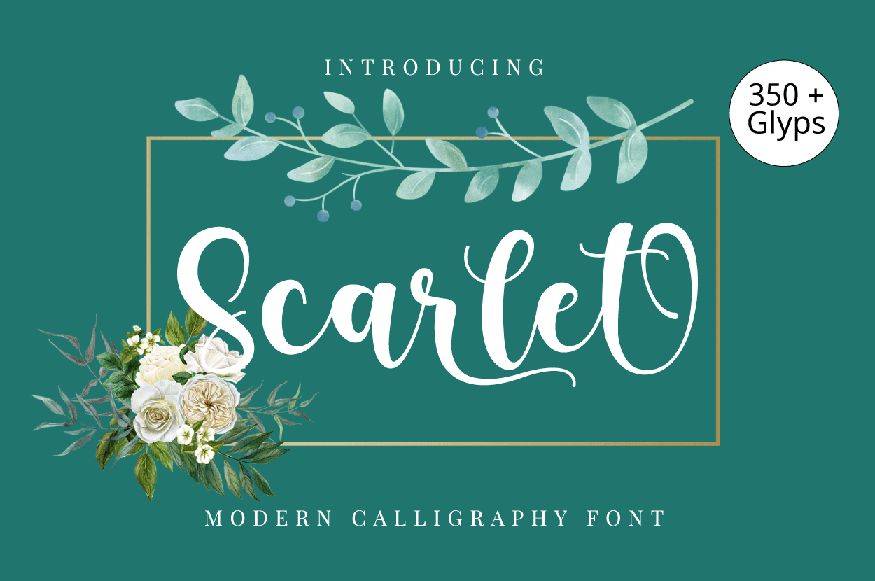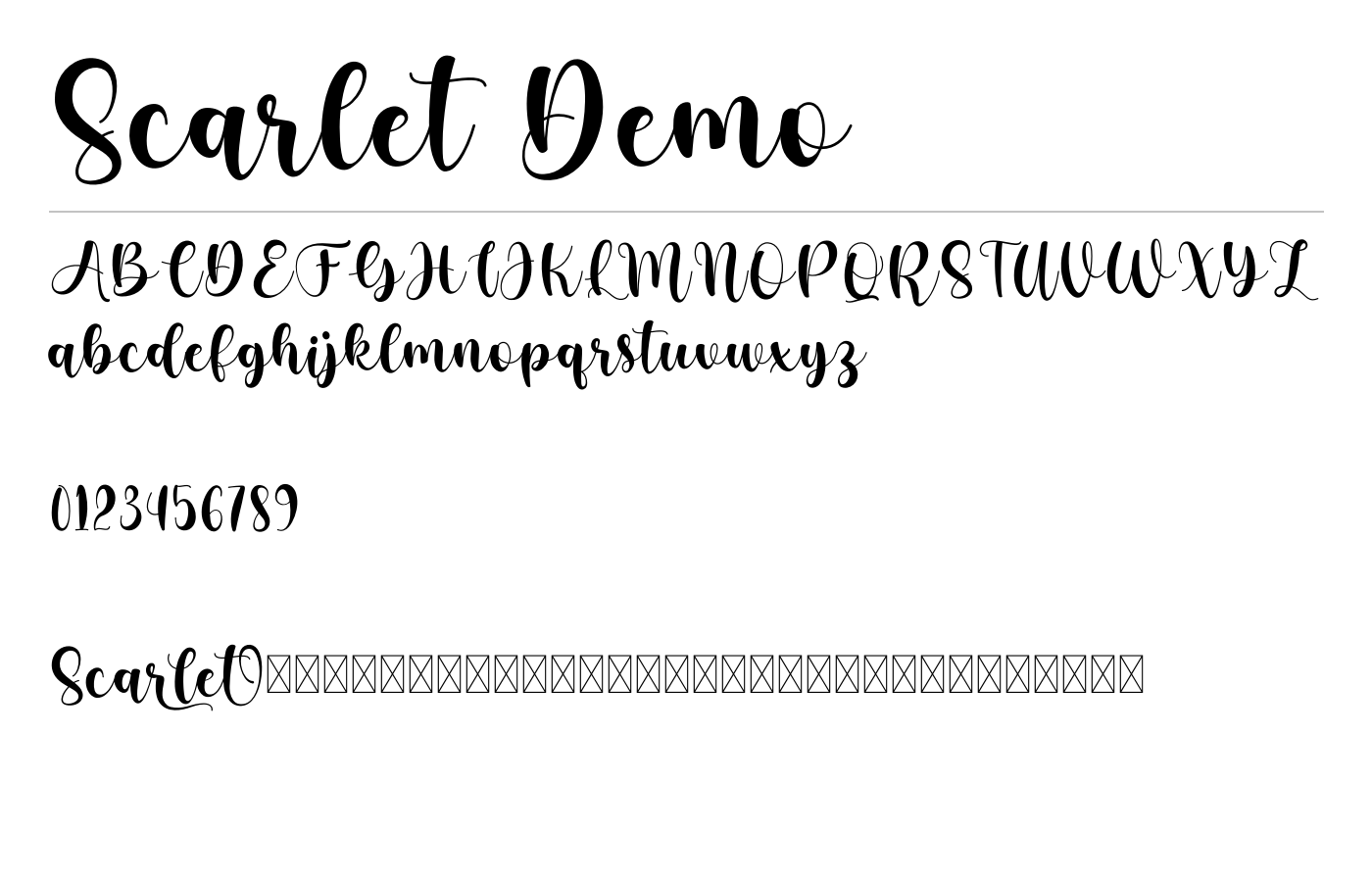
Scarlet Font is a charming and elegant script typeface with a smooth, flowing style that mimics natural handwriting. Its moderately bold weight, high contrast, and playful yet sophisticated letterforms make it perfect for invitations, branding, and other creative projects that seek a warm, personal touch. This font shines in headlines and decorative text where a stylish, feminine personality is desired.
Scarlet Font
About Scarlet Font
| Font family | Scarlet Font |
| Designer | T & G Type |